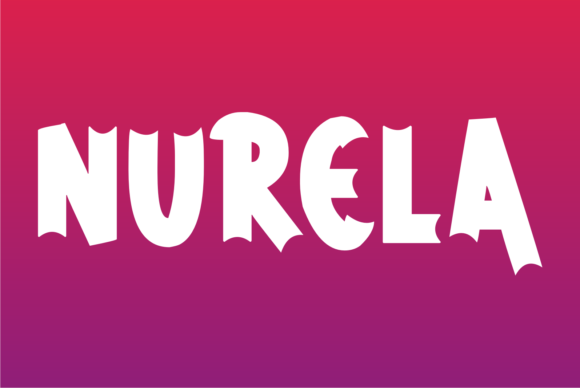
Introducing Nurela: The Display Font That Will Make Your Designs Sizzle!
In a world of ordinary fonts, Nurela stands out like a radiant star, captivating hearts with its thick, bold letters and stunning visual impact. Crafted by the masterminds at MRXTYPE, this display font is the secret weapon you need to elevate your designs to new heights.
Whether you're a seasoned pro or a budding designer, Nurela will ignite your creativity and make your projects shine brighter than ever before. Its bold, edgy strokes exude confidence and charisma, while its clean lines ensure readability and sophistication.
But don't just take our word for it! Let Nurela's charm speak for itself:
* **Love at First Sight:** Nurela is the perfect match for expressing heartfelt emotions in your designs. Its thick, curvaceous letters evoke the warmth and passion of love, making it ideal for creating captivating quotes, romantic invitations, and heartfelt messages.
* **Bold Statements:** Nurela's bold presence commands attention, making it the ideal choice for headlines, posters, and branding materials. Its thick strokes convey strength, power, and a touch of rebellion, ensuring your message will be heard loud and clear.
* **Effortless Elegance:** Despite its bold nature, Nurela maintains an air of sophistication and elegance. Its clean lines and precise curves lend a touch of refinement to any design, making it perfect for creating wedding invitations, luxury packaging, and high-end marketing materials.
* **Creative Versatility:** Nurela's versatility knows no bounds. Whether you're designing for print, web, or social media, this font will seamlessly adapt to your needs. Its thick strokes ensure legibility even at small sizes, while its bold personality adds a touch of flair to any project.
* **Timeless Appeal:** Nurela is not just a passing trend; it's a timeless masterpiece that will never go out of style. Its classic yet modern design ensures that your creations will look stunning for years to come.